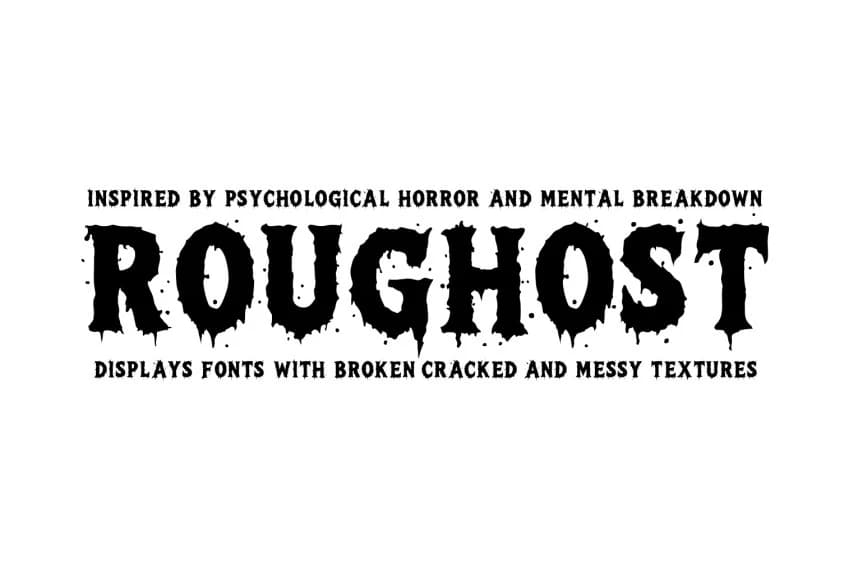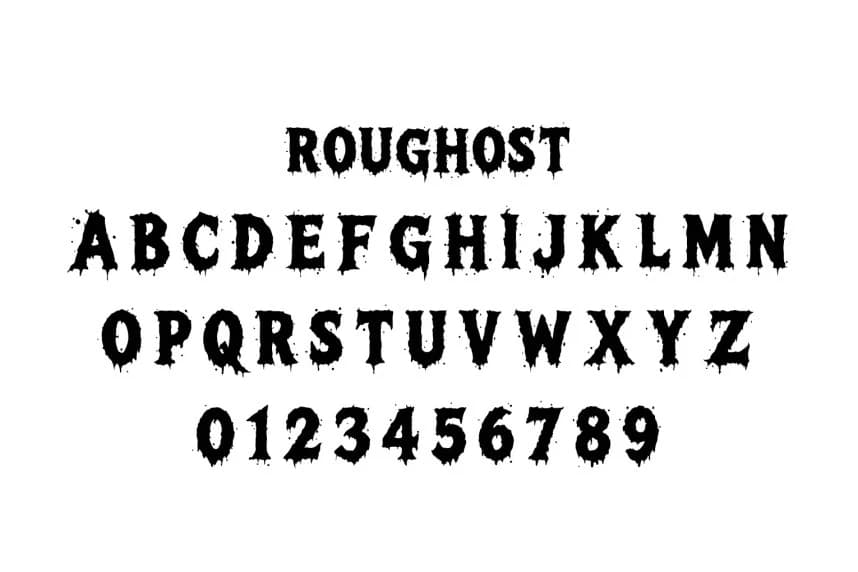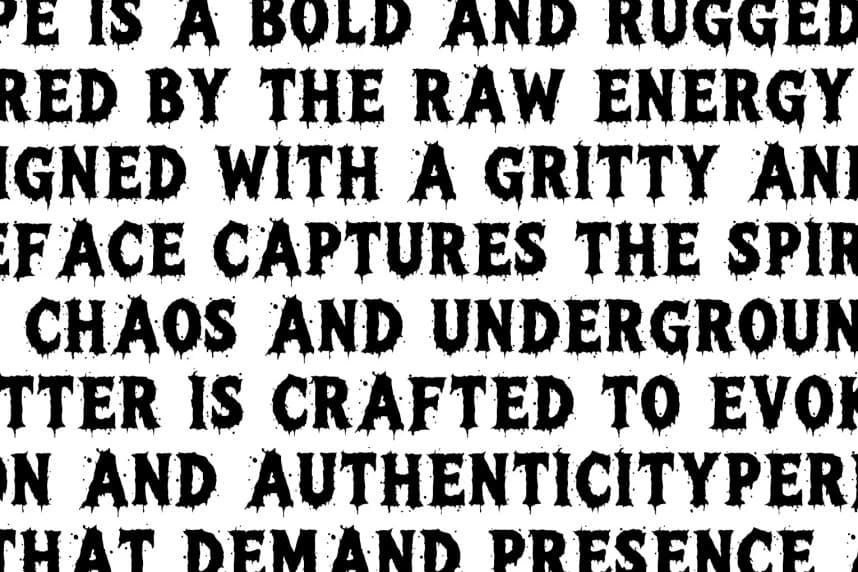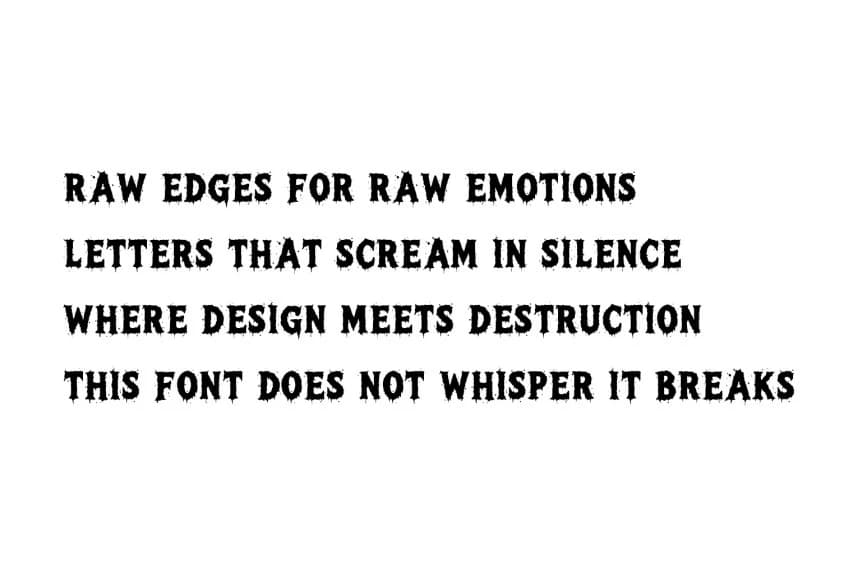
Roughost Font
Roughost Font is a bold horror-style display font with rough edges and distressed details that create a dark, spooky, and dramatic atmosphere. Inspired by vintage horror posters and grunge aesthetics, this typeface is perfect for Halloween designs